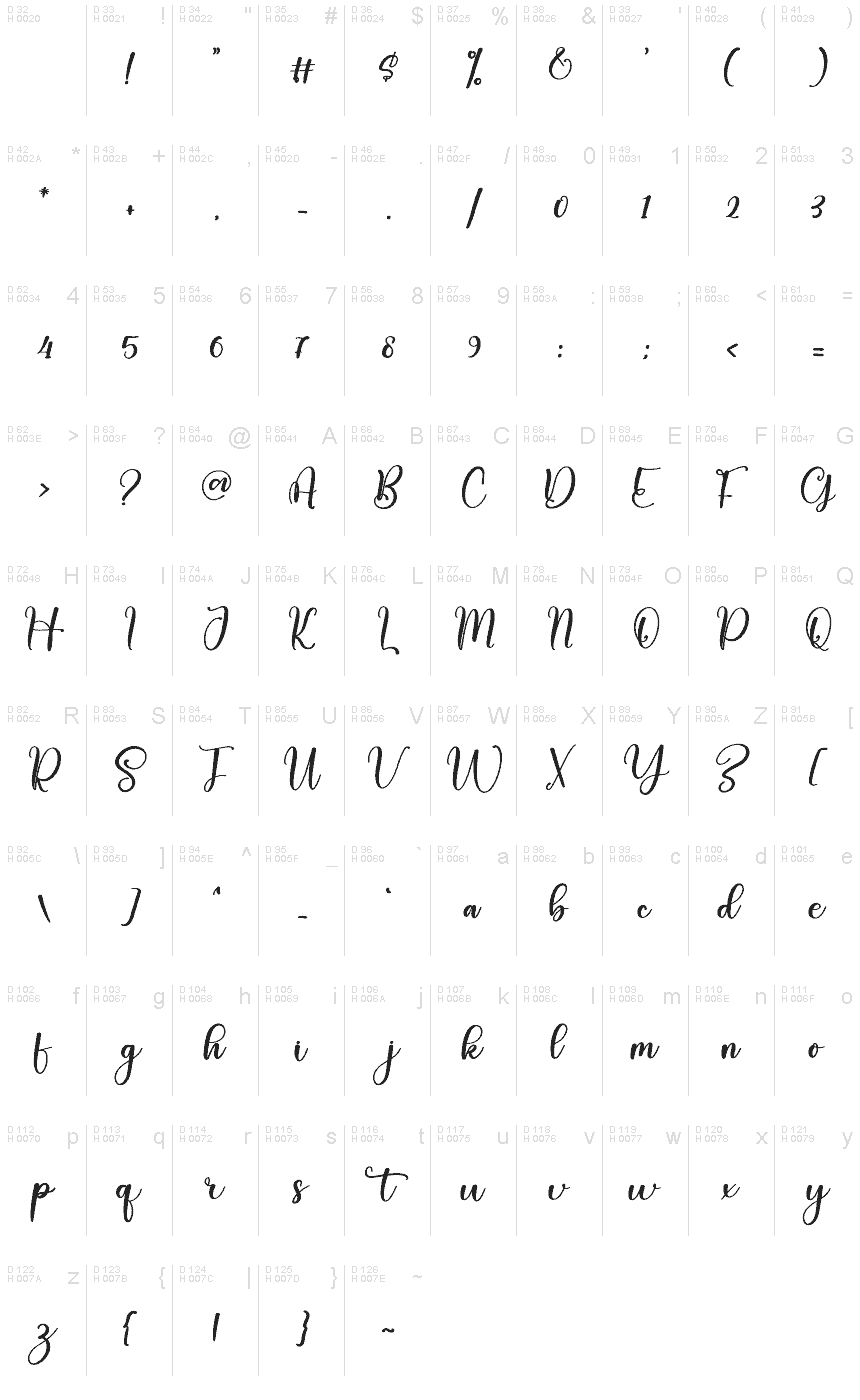
Course
Course font is a free handwritten font that blends the elegance of script style with a modern appeal. It flows expressively, giving each character a personal touch, resulting in harmonious and visually captivating designs.